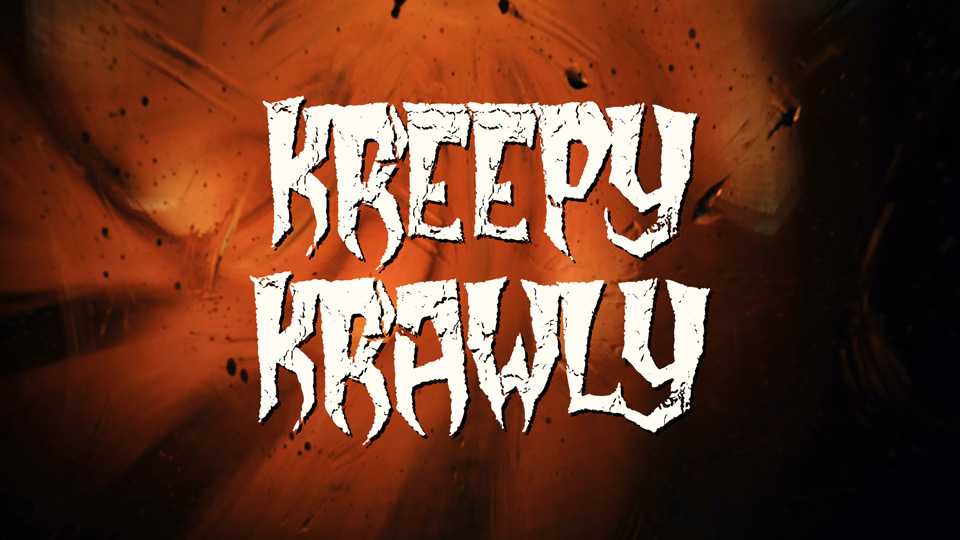
Download Kreepy Krawl font, a typeface font that sends shivers down your spine with every letter. Kreepy Krawly font is the perfect choice when you want to infuse your designs with an unrelenting sense of horror.